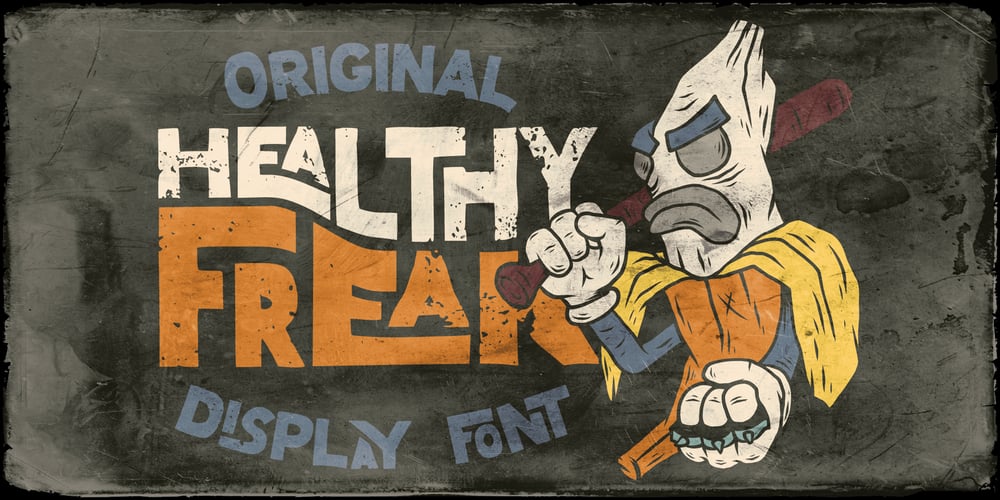
Healthy Freak
Healthy Freak font
Healthy Freak Font Family was designed by Oleg Voznyy and published by Vozzy. Healthy Freak contains 2 styles and family package options. Introducing original font named Healthy Freak. All available characters you can see at the screenshots. This font has two styles: Regular and Rough. Main feature is a lot of ligatures for both styles! This font will look good on any street styled designs like a poster, T-shirt, label, logo, etc.